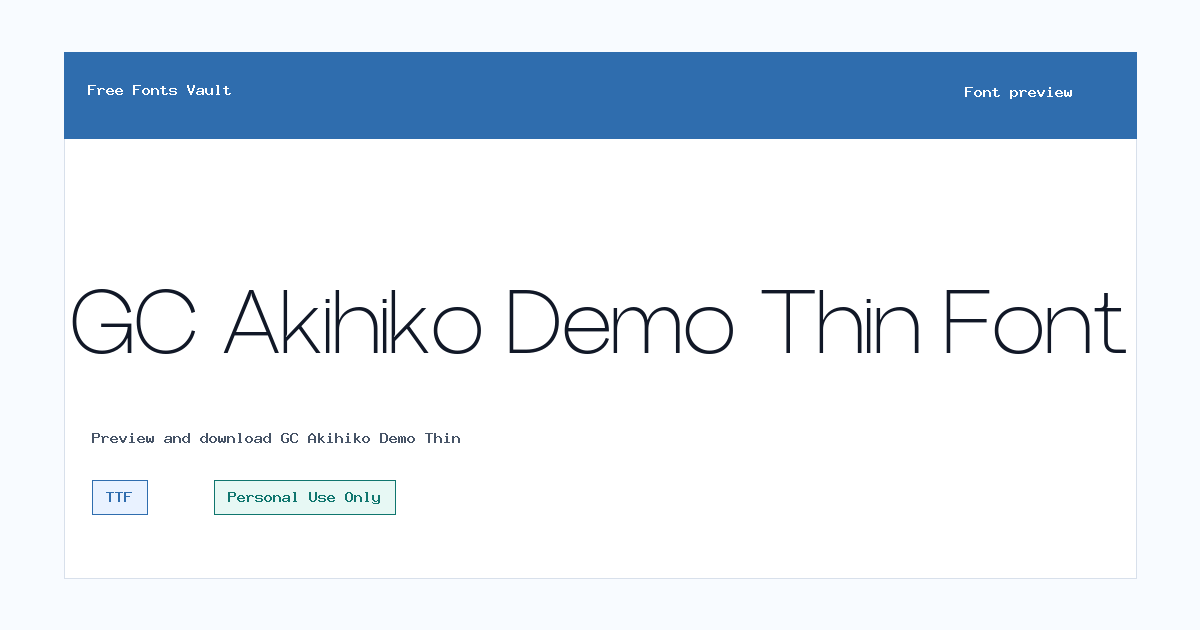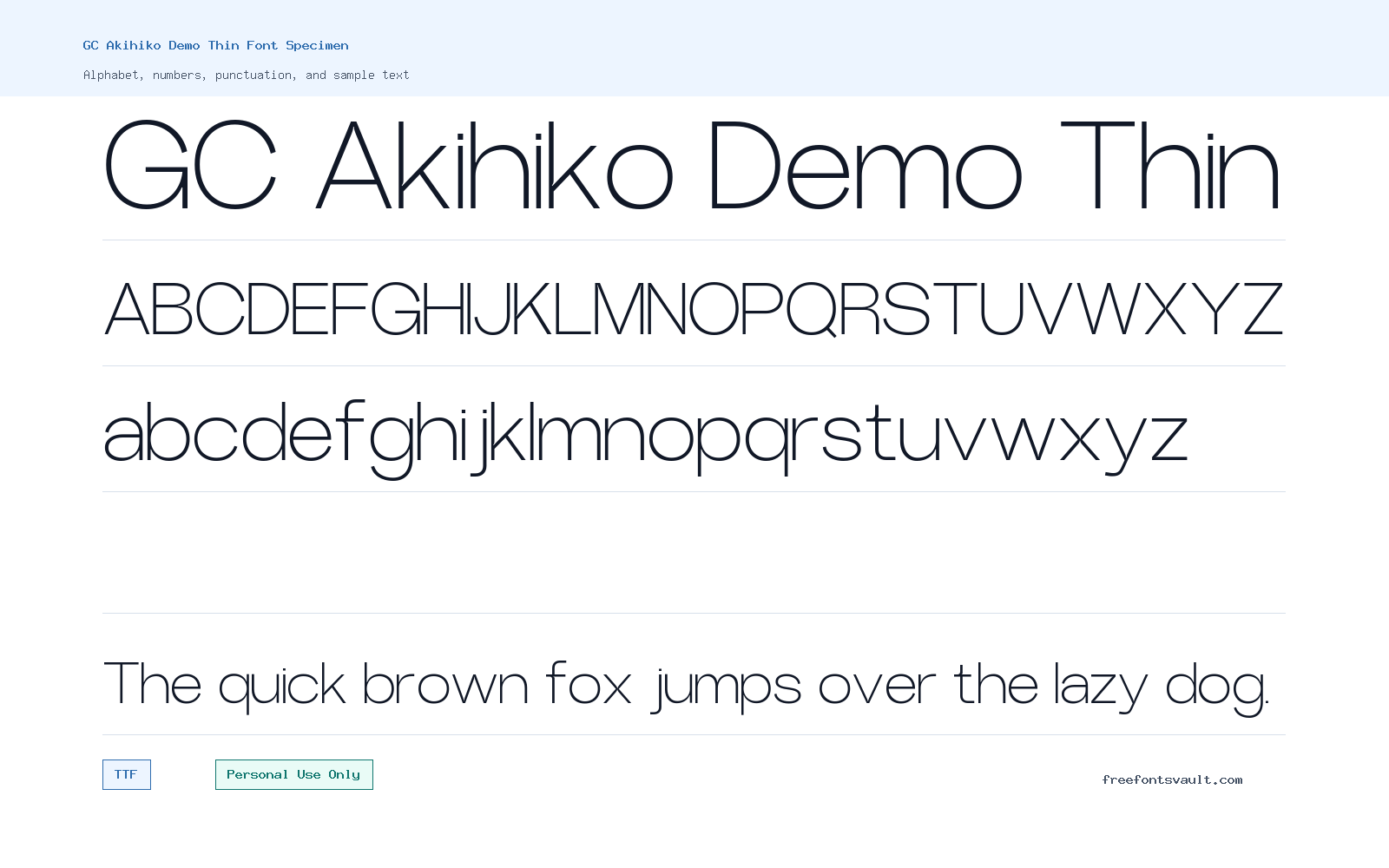
GC Akihiko Demo Thin
GC Akihiko Demo Thin is the thin demo style from the GC Akihiko sans serif family by Glyphonic. It gives designers a clean, very light geometric look for testing headings, identity ideas, posters, and interface mockups.
About GC Akihiko Demo Thin
GC Akihiko Demo Thin has a slim, modern sans serif structure with a precise geometric feel. In the thin weight, the letters look airy and restrained, so the font is best used where space, alignment, and clean shape matter more than heavy impact. It can work well for large headlines, minimal logo drafts, fashion-style layouts, editorial titles, packaging concepts, social posts, and web hero mockups. Because this is a thin style, it needs enough size and contrast to stay readable. It will usually look stronger in short text than in long paragraphs, especially on small screens.
Use the preview box to test real words before downloading. Thin geometric fonts can look elegant in a sample alphabet but may behave differently with brand names, numbers, punctuation, or mixed-case text. Try your project title, menu labels, product name, and a few short call-to-action lines. If the strokes feel too delicate, pair this thin style with a heavier sans serif from the same family or a neutral body font for support. For logo work, check spacing carefully around narrow letters, round characters, and repeated strokes. For posters and web mockups, give the type generous line height and avoid placing it over busy photos unless you add strong contrast.
- Thin 100-weight demo style with a clean geometric sans serif appearance
- Uppercase and lowercase Latin letters are shown in public font previews for the GC Akihiko demo family
- The broader GC Akihiko family is described by sellers as a modern precision sans with multiple weights
- Best suited to short display text rather than dense reading copy
- Minimal logo drafts and wordmark exploration
- Poster titles and clean event graphics
- Fashion, tech, portfolio, or editorial-style headings
- Website hero sections and landing page mockups
- Brand identity concepts before choosing a final licensed family
- Packaging concepts, social graphics, and presentation titles
Use GC Akihiko Demo Thin at larger sizes where the fine strokes can breathe. It is a good choice for clean titles, quiet brand concepts, and polished mockups, but it may become fragile in small UI labels, captions, or low-contrast designs. Pair it with a readable sans serif for body text, or use a heavier GC Akihiko style if your layout needs stronger hierarchy. When testing a logo or headline, check the spacing manually instead of relying only on default tracking.
What kind of font is GC Akihiko Demo Thin?
It is a thin-weight sans serif demo font. The wider GC Akihiko family is described by font sellers as a modern geometric or precision sans serif family.
Is this font good for body text?
It is better for short display text. The thin strokes may be hard to read in long paragraphs, small captions, or low-contrast web layouts.
What should I pair with GC Akihiko Demo Thin?
Pair it with a plain, readable sans serif for body copy. If you want stronger contrast, use the thin style for large titles and a medium or regular sans serif for navigation, captions, and paragraphs.